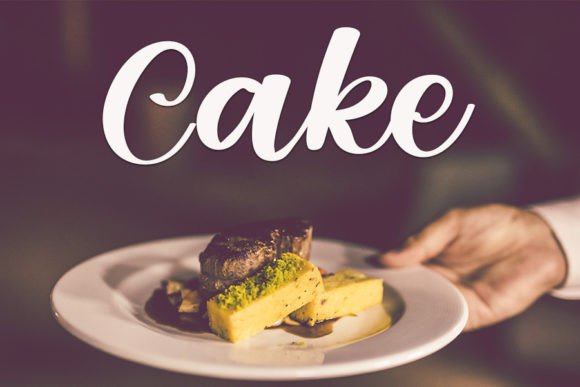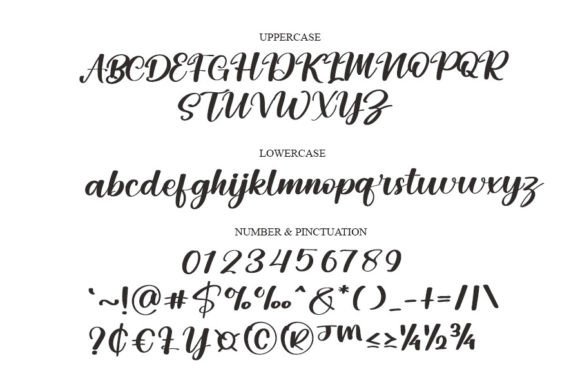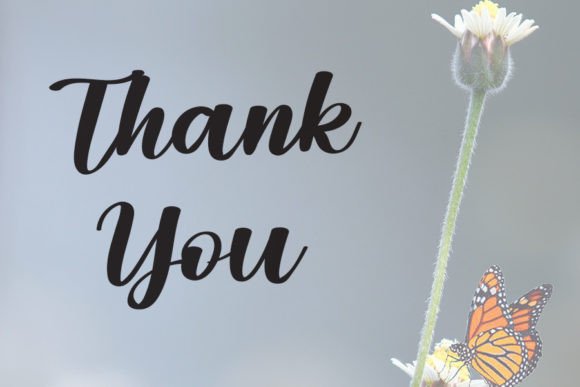
The Magic of Butterfly Font: A Designer’s Delight
I’ll never forget the moment I stumbled upon the Butterfly font while working on a project for a client’s wedding invitation. I had tried countless fonts, but none seemed to capture the elegance and whimsy I was looking for. That was until I saw Butterfly – its beautiful, handwritten curves and elegant touch instantly won me over. In this article, I’ll share my love for this font, its features, and how to make the most of it in your designs.
An Honest Review of Butterfly Font
- ✅ Elegant and sophisticated feel, perfect for high-end designs
- ✅ Unique and distinctive style that sets it apart from other fonts
- ✅ Beautifully crafted to evoke a sense of whimsy and romance
- ⚠️ Some users may find the font a bit too ornate for very casual designs
- ⚠️ Limited availability of certain characters or glyphs, although this can be addressed with OpenType features
A Practical Guide to Using Butterfly Font
- Experiment with OpenType features, such as stylistic alternates and glyphs, to add more personality to your text
- Explore the various glyphs and stylistic alternates available, such as swashes and ligatures
The Backstory of Butterfly Font
Butterfly font was designed by a talented typographer who wanted to create a font that captured the beauty and elegance of a butterfly’s wings. With its intricate curves and delicate lines, Butterfly font is a true masterpiece of font design.
| What is the best use for Butterfly font? | Butterfly font is perfect for designs that require an elegant, sophisticated feel, such as wedding invitations, branding, and packaging. |
| Is Butterfly font suitable for body text? | While Butterfly font is beautiful, it may not be the best choice for body text due to its ornate nature. However, it can be used for short paragraphs or headings. |
| Is Butterfly font available in different languages? | Butterfly font may not be available in all languages, but it does support a range of characters and glyphs. |